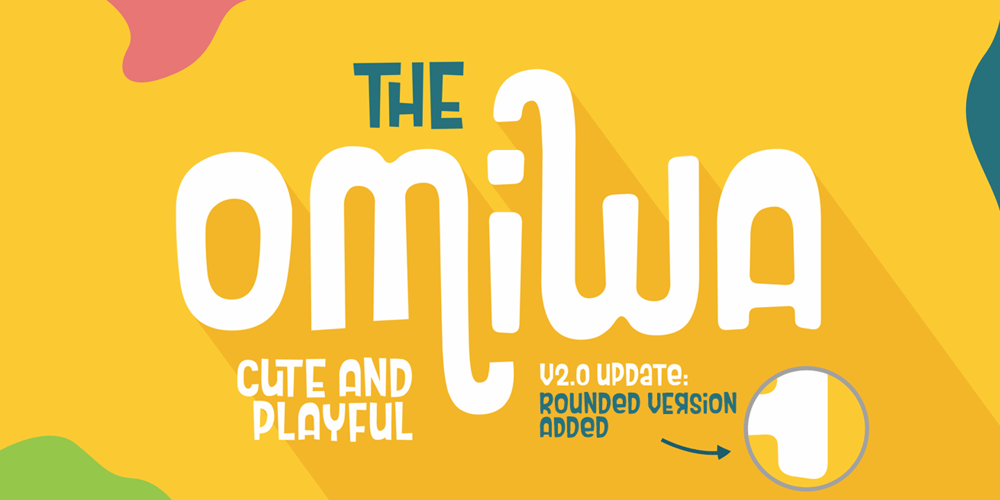
Omiwa Font Family was designed by Lia Wijayanti and published by Orenari. Omiwa contains 2 styles and family package options. Omiwa is a playful Display font with a unique character that is perfect for all design purposes. With unique alternate characters you can combine it into awesome waves! – This font is semi-ALL-Caps font, because some characters have lowercase (f, g, i, j, r). – The characters with Stylistic Alternates : A, H, K, M, N, R, U, V, W, X, Y I really hope your projects will be cool with this font, and please don’t hesitate to drop me a message if you have any questions or you wanna share some jokes!